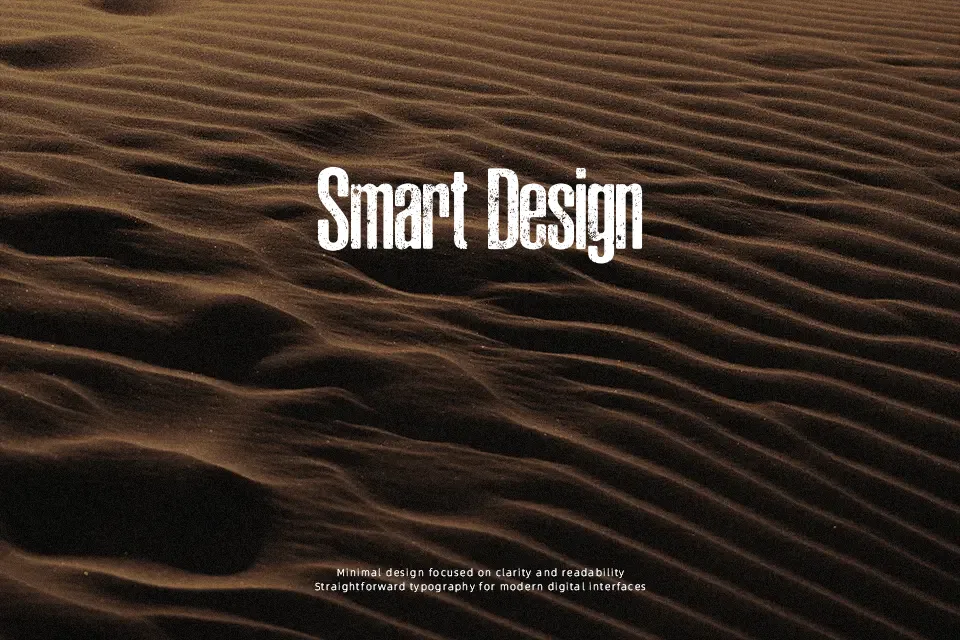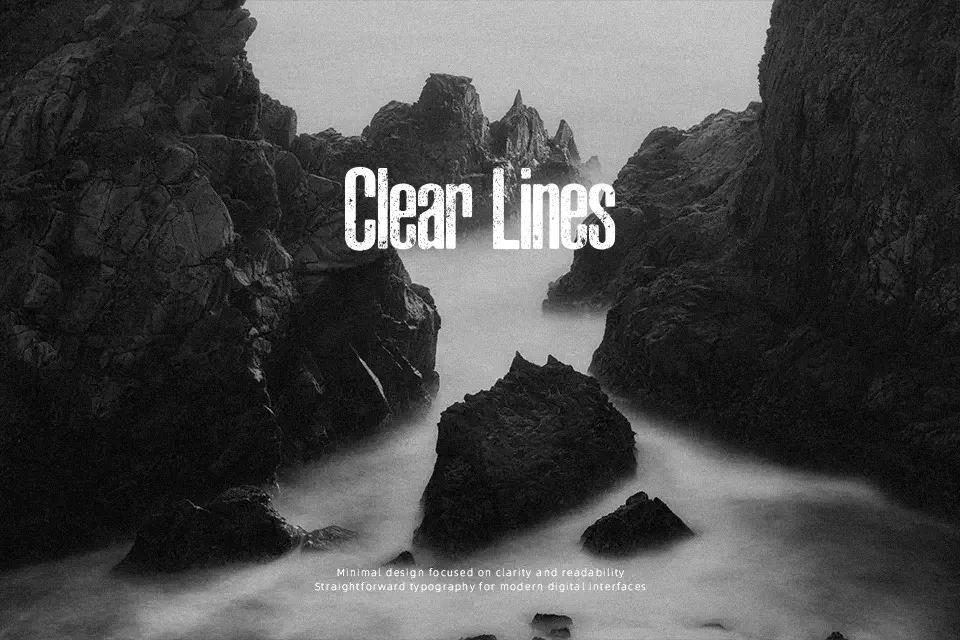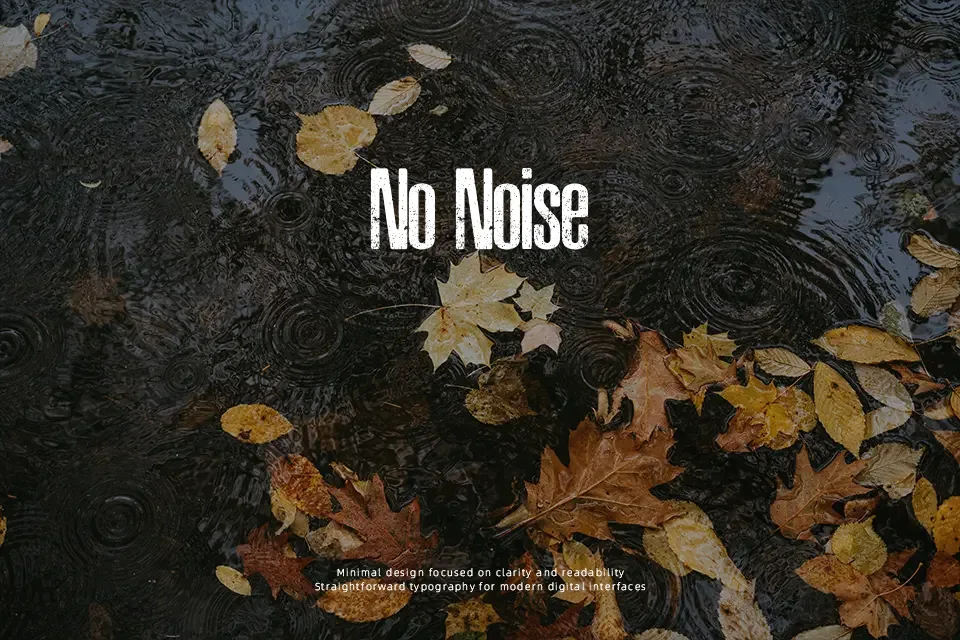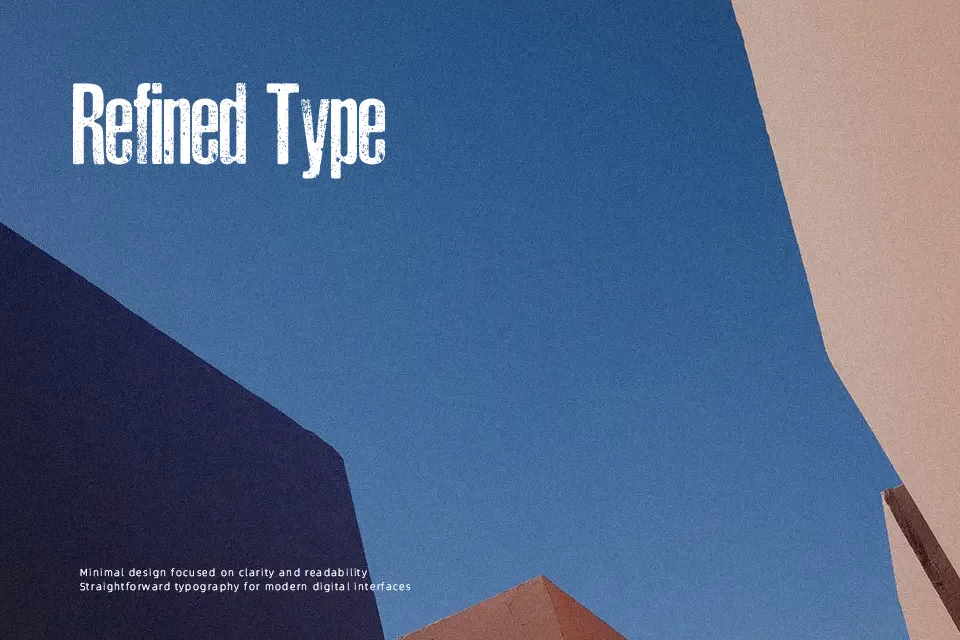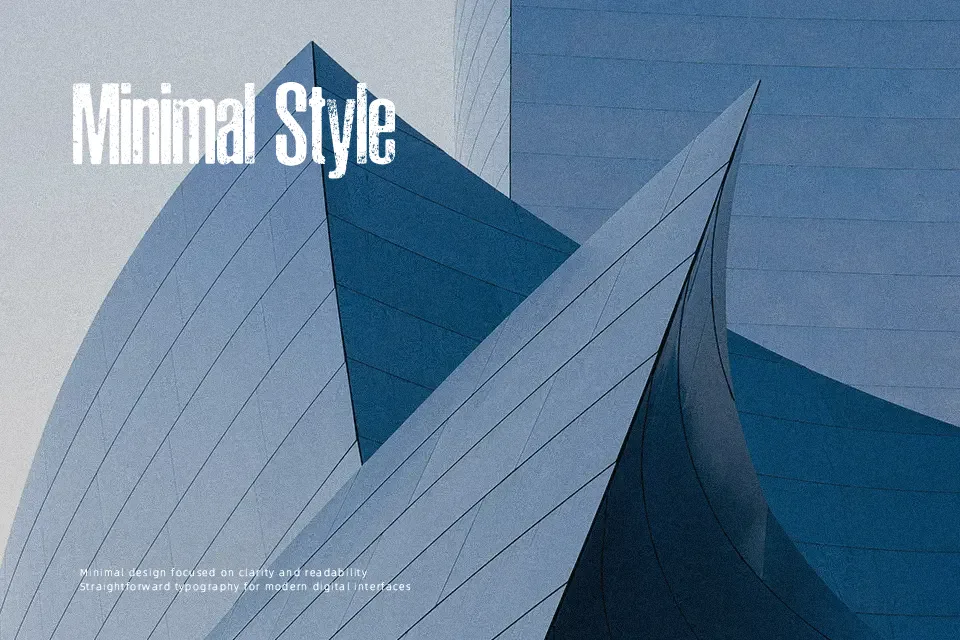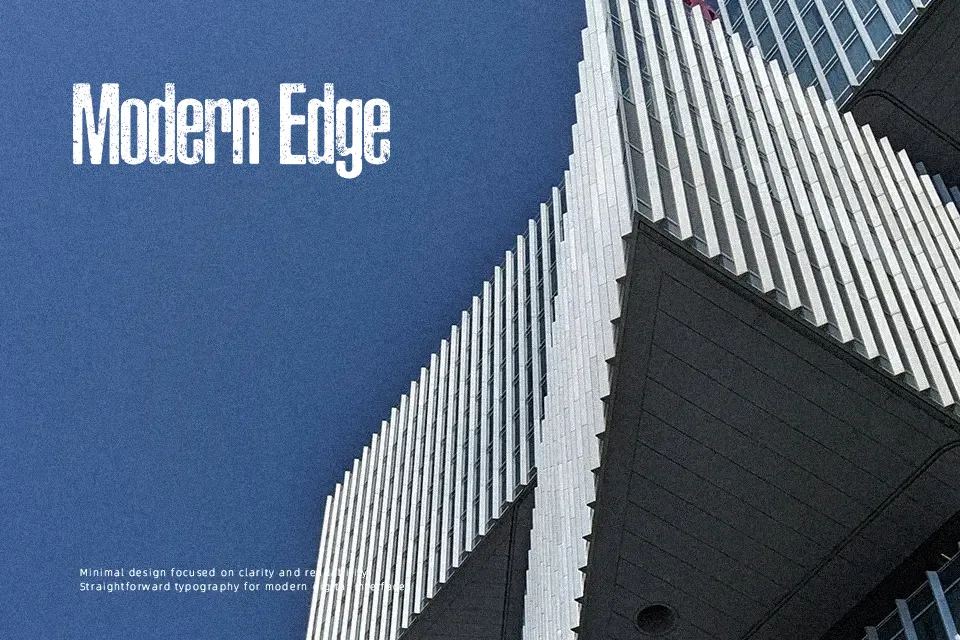
Asphaltic Scratch Rounded Font
The letterforms carry a worn, scratched texture across broad strokes, yet the rounded terminals give each character a surprisingly contained finish — like asphalt that’s been sanded down just enough to remove the sharpest edges. That tension between grit and softness is exactly what makes this font click for urban branding, band merchandise, and skateboarding or streetwear labels. For small-scale body copy, it falls apart quickly — the eroded texture clogs up at low sizes and readable hierarchy disappears. At headline or display scale, though, the character shines through without feeling overdone. It’s not a font for minimalist or professional audiences, but in the right rough-edged visual context, the scratchy weight and rounded structure do most of the creative heavy lifting.
Best For:- Street culture and urban apparel headline graphics
– Punk, rock, or underground music posters
– Halloween and horror-adjacent promotional materials
– Skateboarding brand or event titles
Not Ideal For:- Body text or long-form reading at small sizes
– Corporate identity or business documentation
– Clean, minimal UI designs
– Wedding or formal event typography
Perfect for advertising, branding, and logo, with a bold and display style.